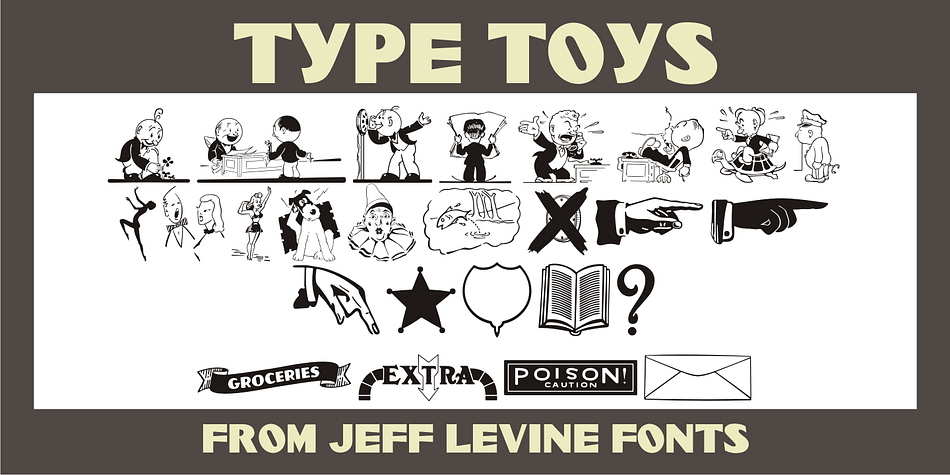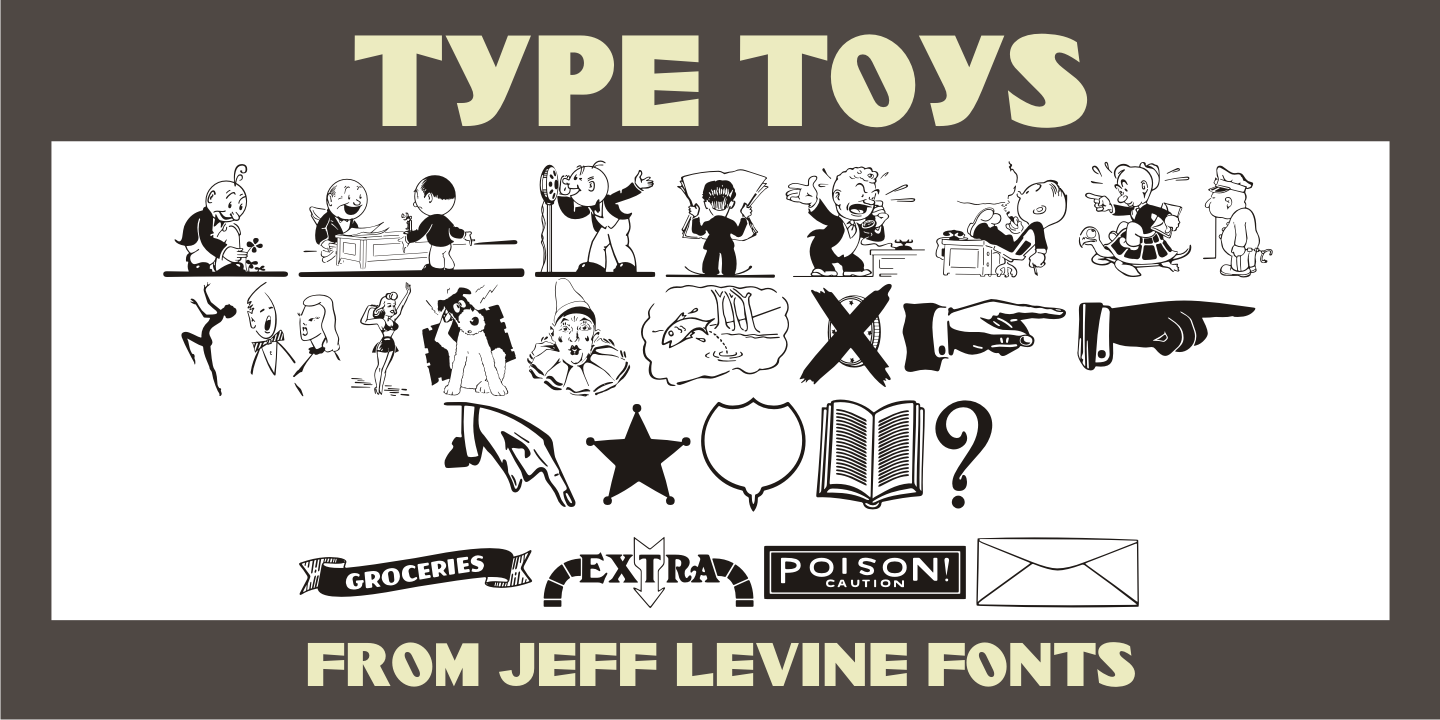
Type Toys JNL is a dingbat font published by Jeff Levine Fonts.
Type Toys JNL is another collection of letterpress dingbats, embellishments, stock cuts, cartoons and miscellany all re-drawn from vintage source material.